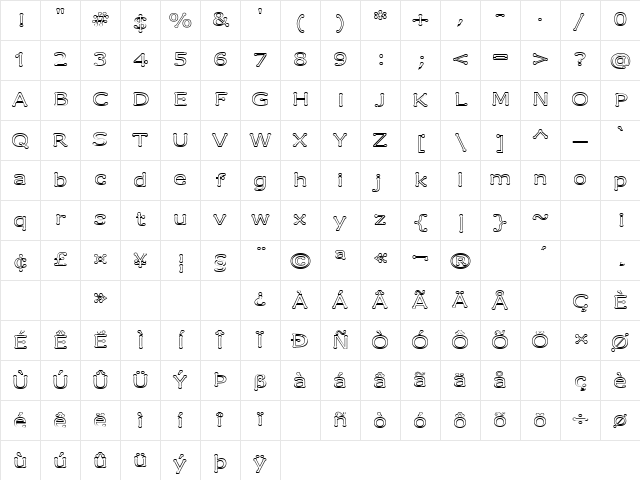
Drummon Outline
Style: Outline
Drummon Family
Drummon Outline
Design Context for Drummon
Drummon is built around its visual character rather than neutral utility - its distinctive forms are designed to make an impression at display sizes.
Font Pairing: Pair with a clean neutral sans-serif for body copy to let Drummon's character lead without overwhelming the composition.
Pro Tip: Use Drummon exclusively at display sizes - it was designed to be seen, not read at length. Let a neutral companion handle body copy.